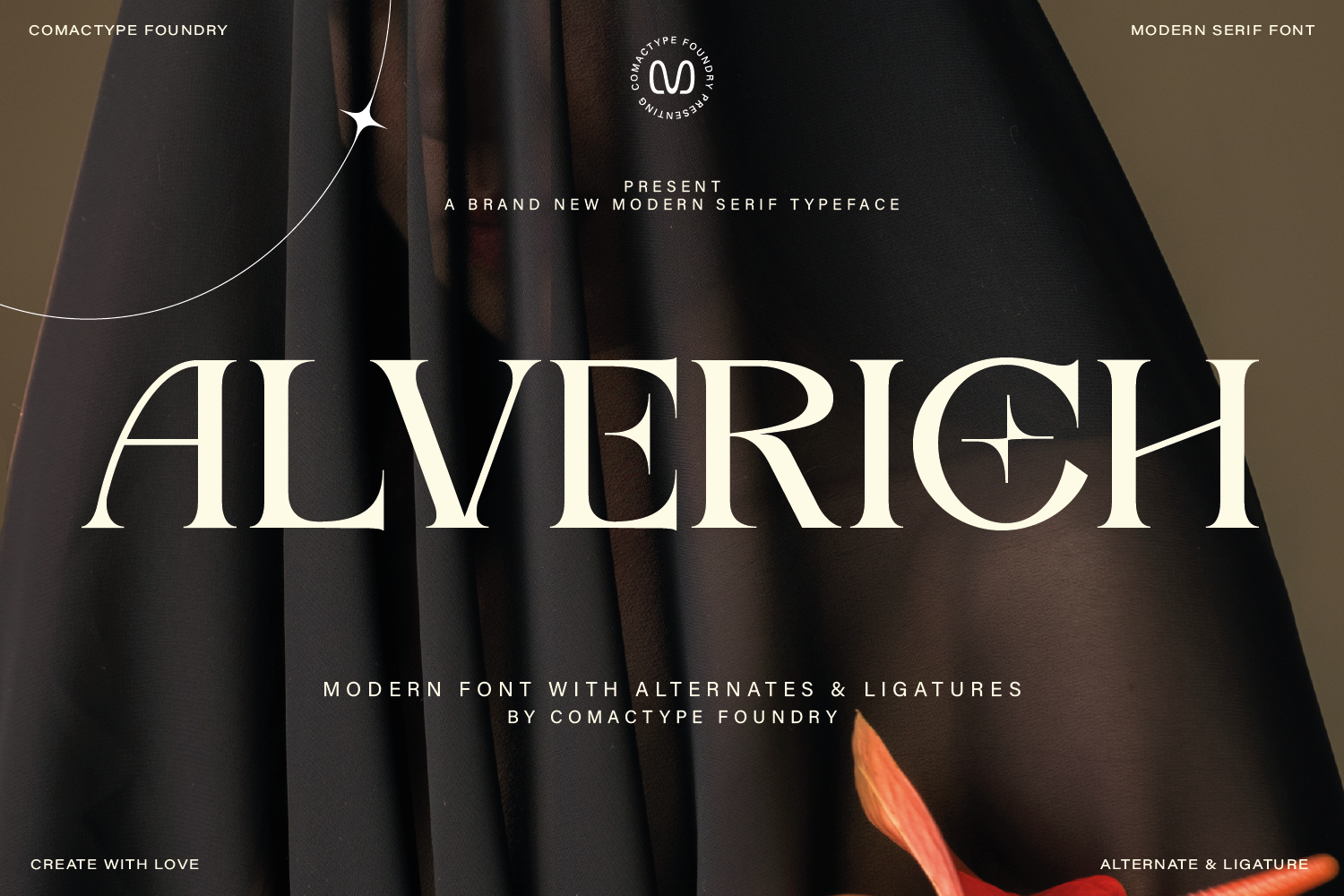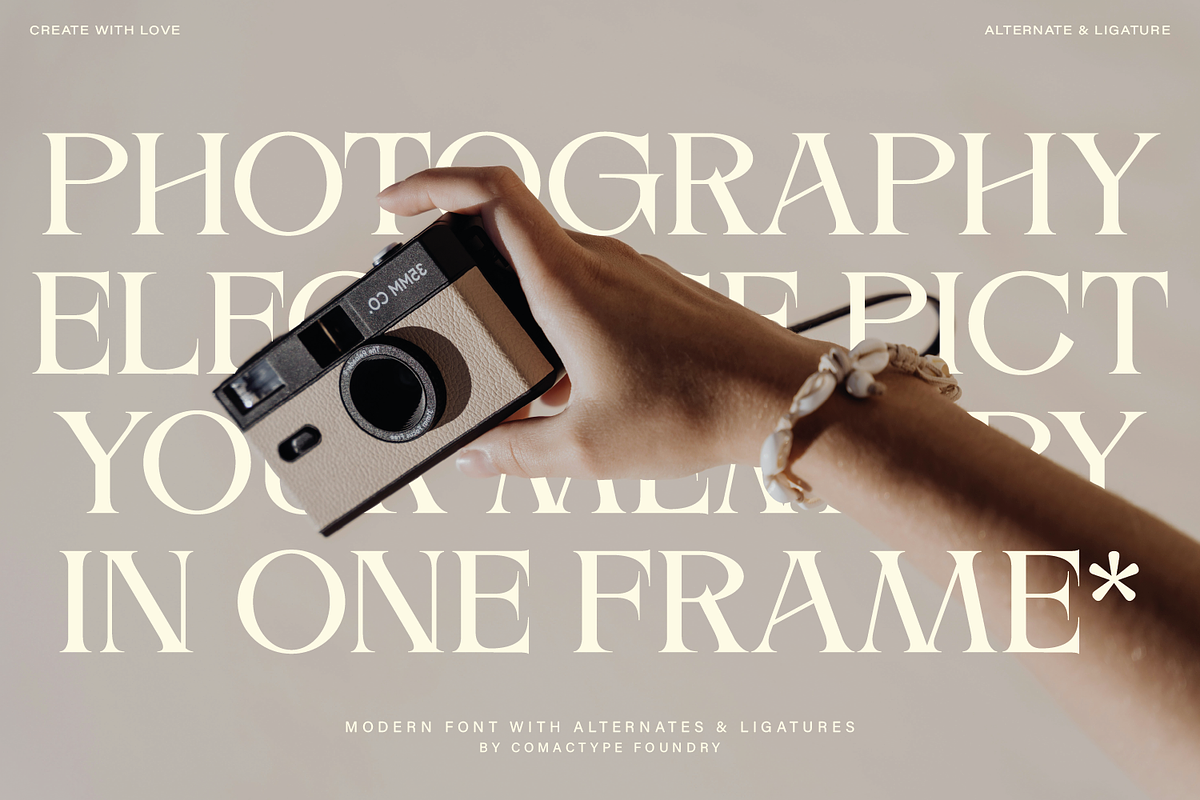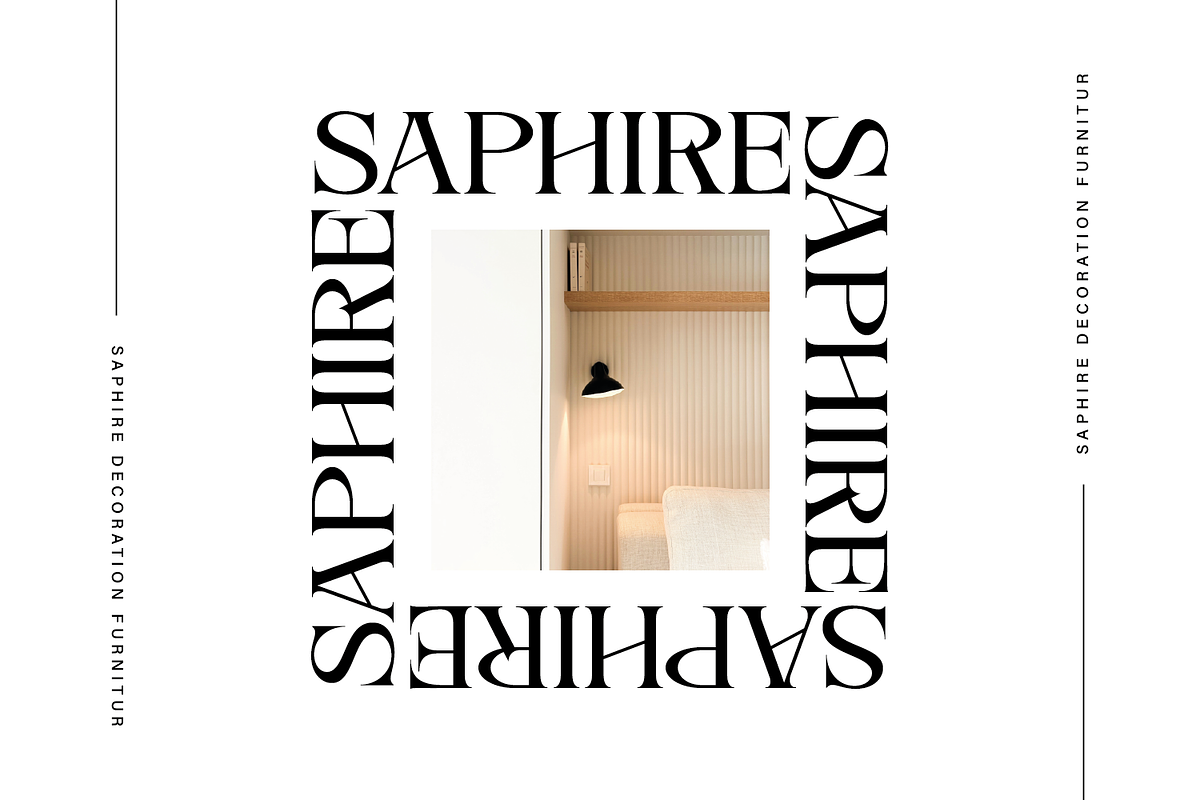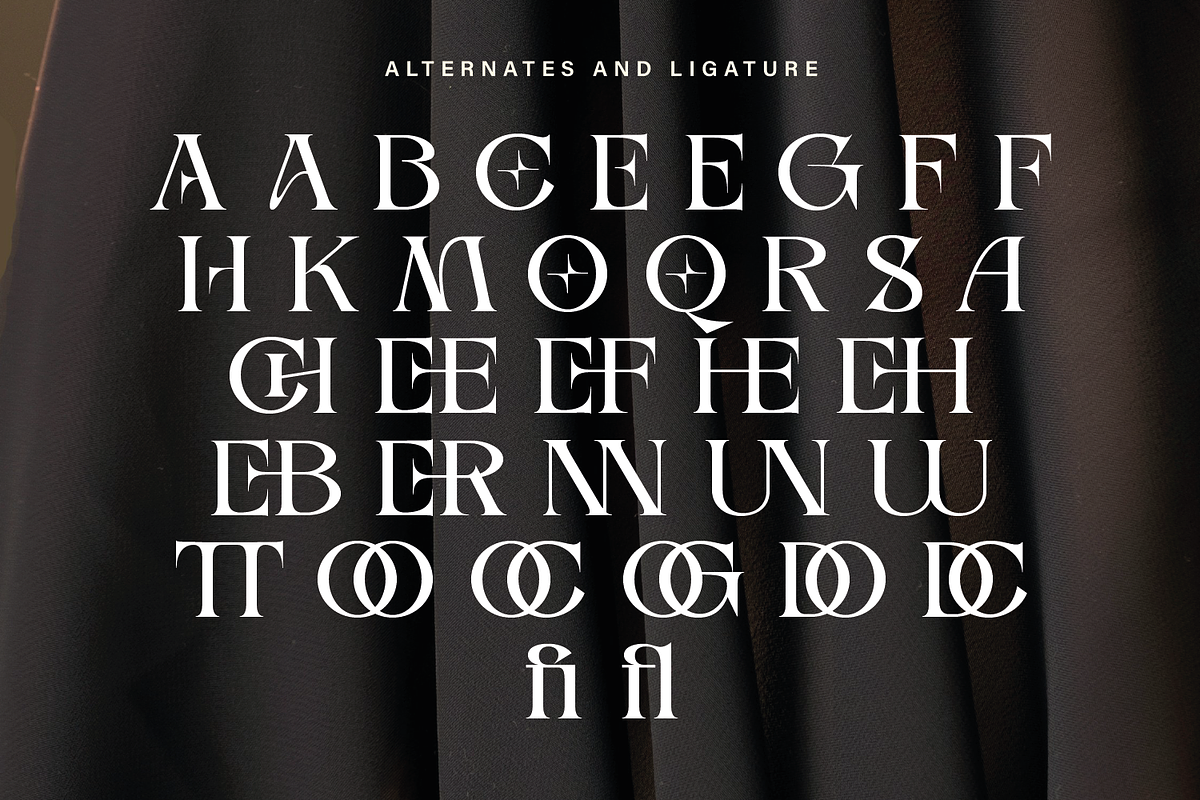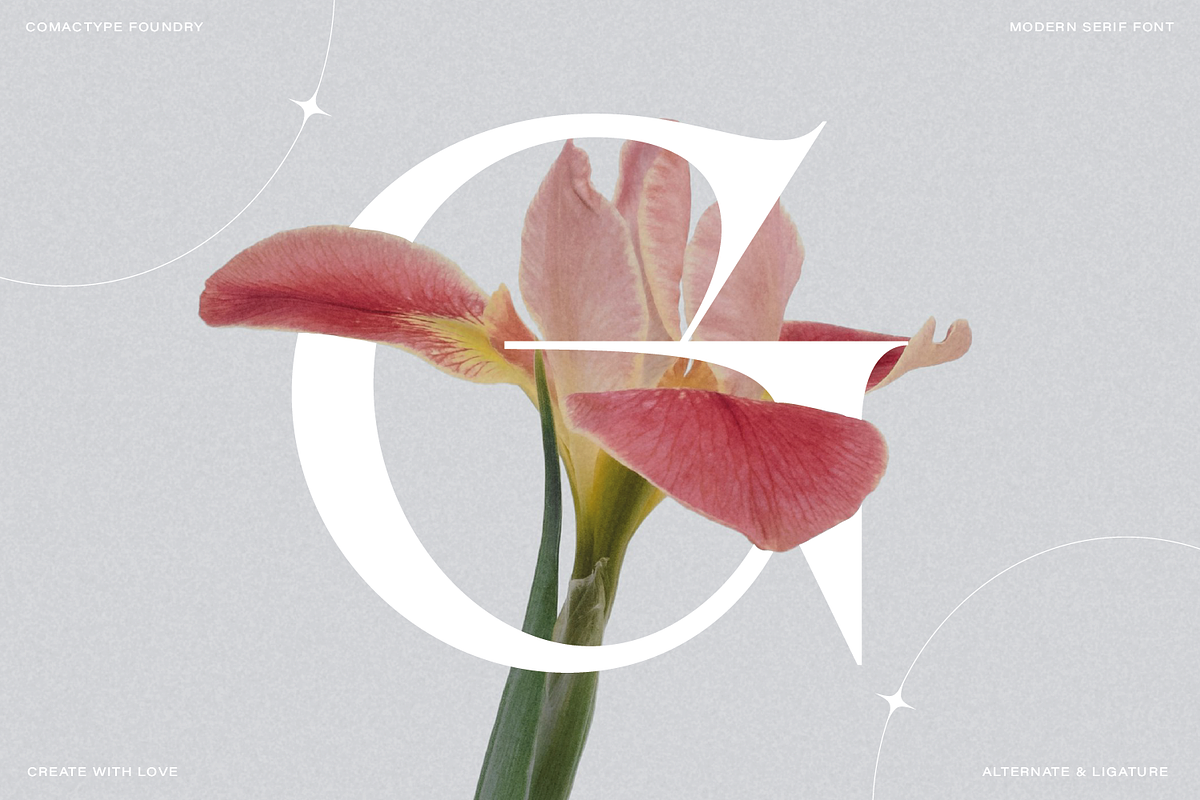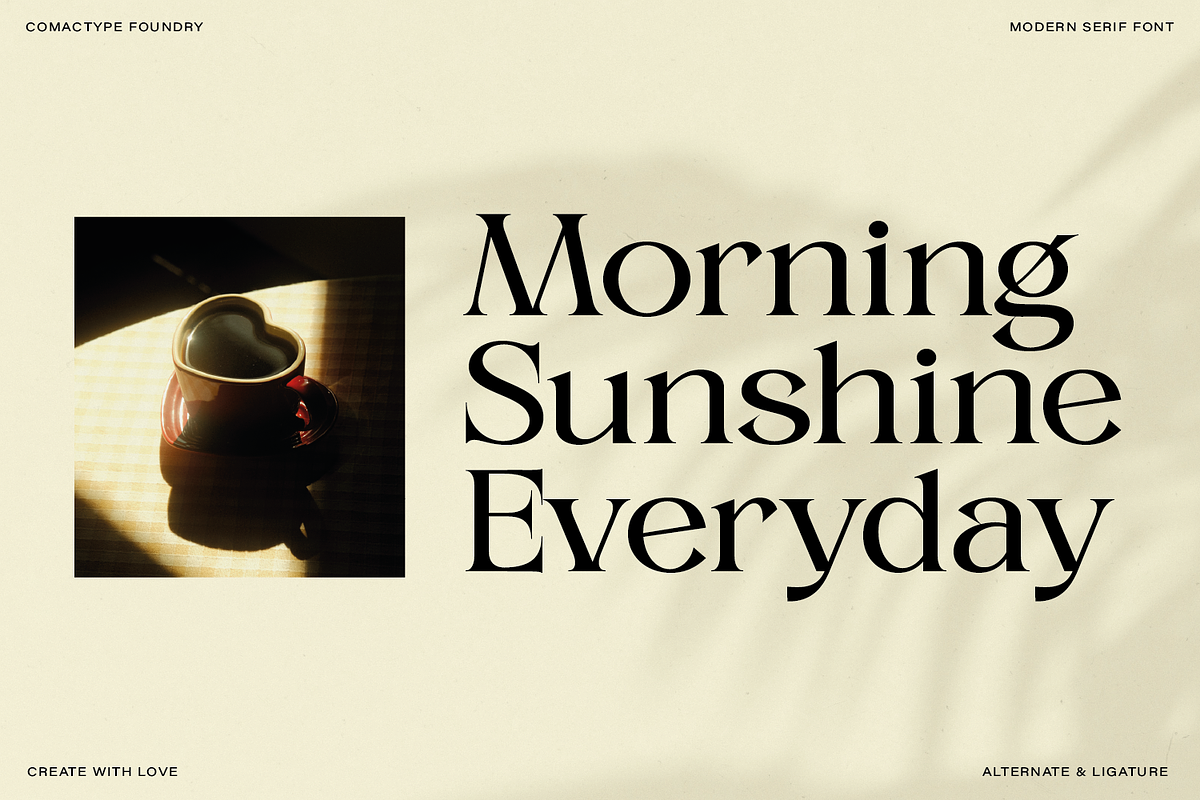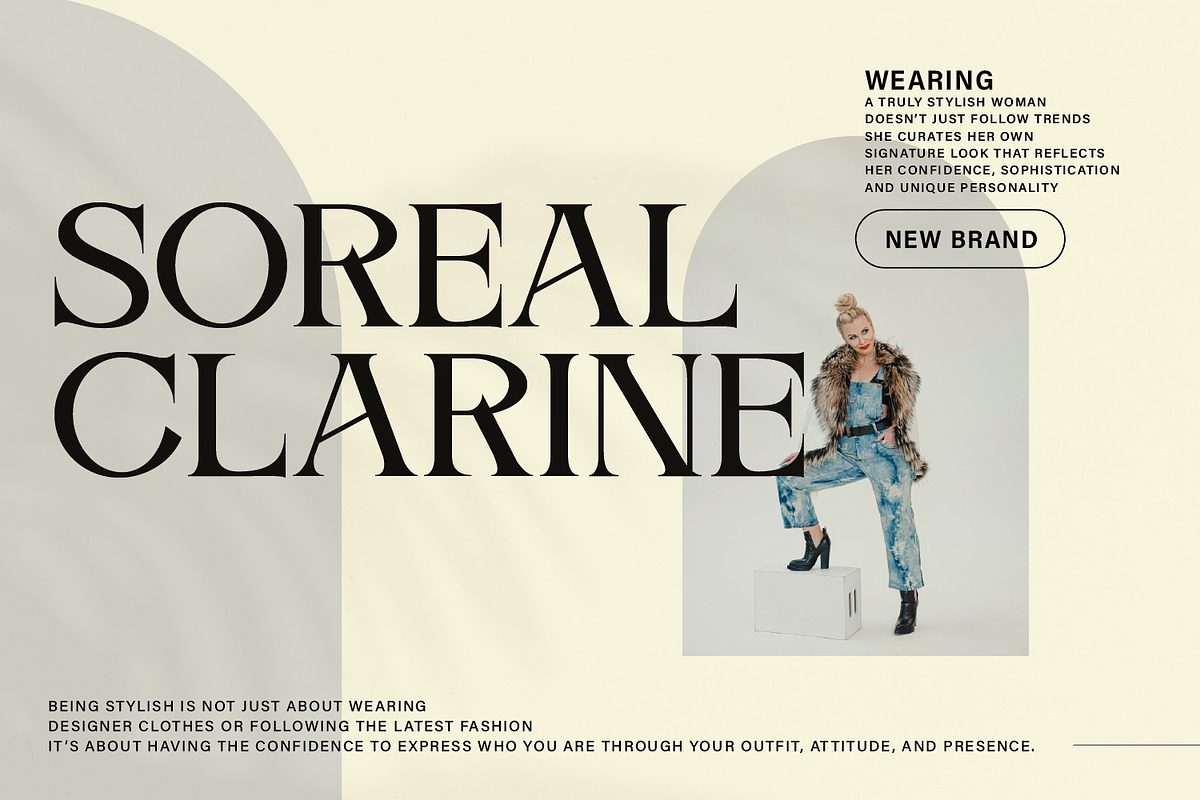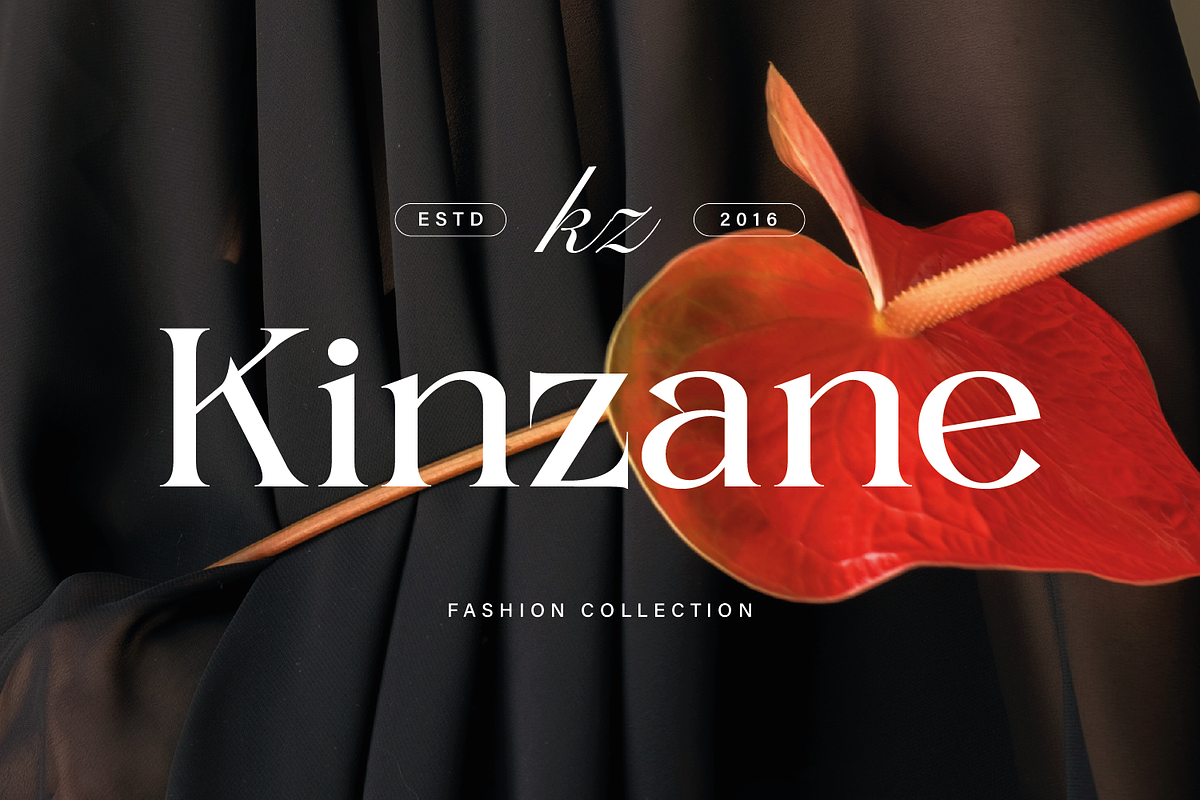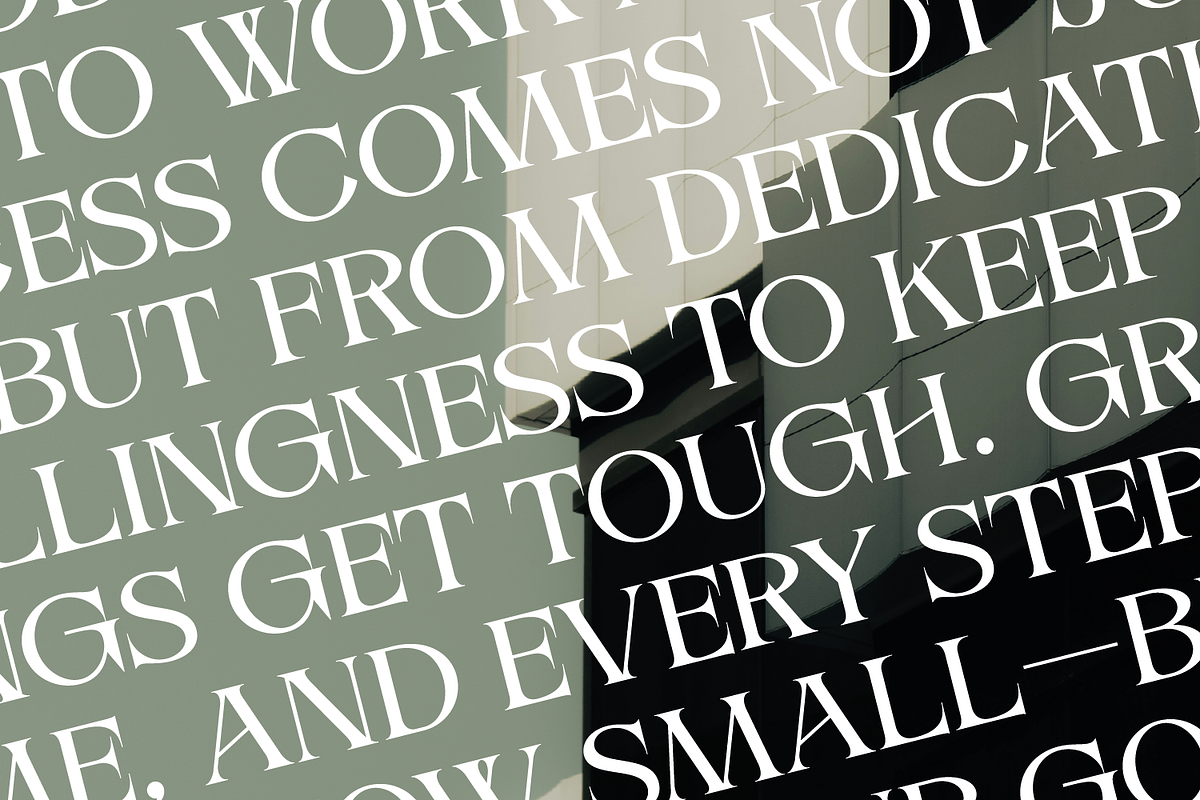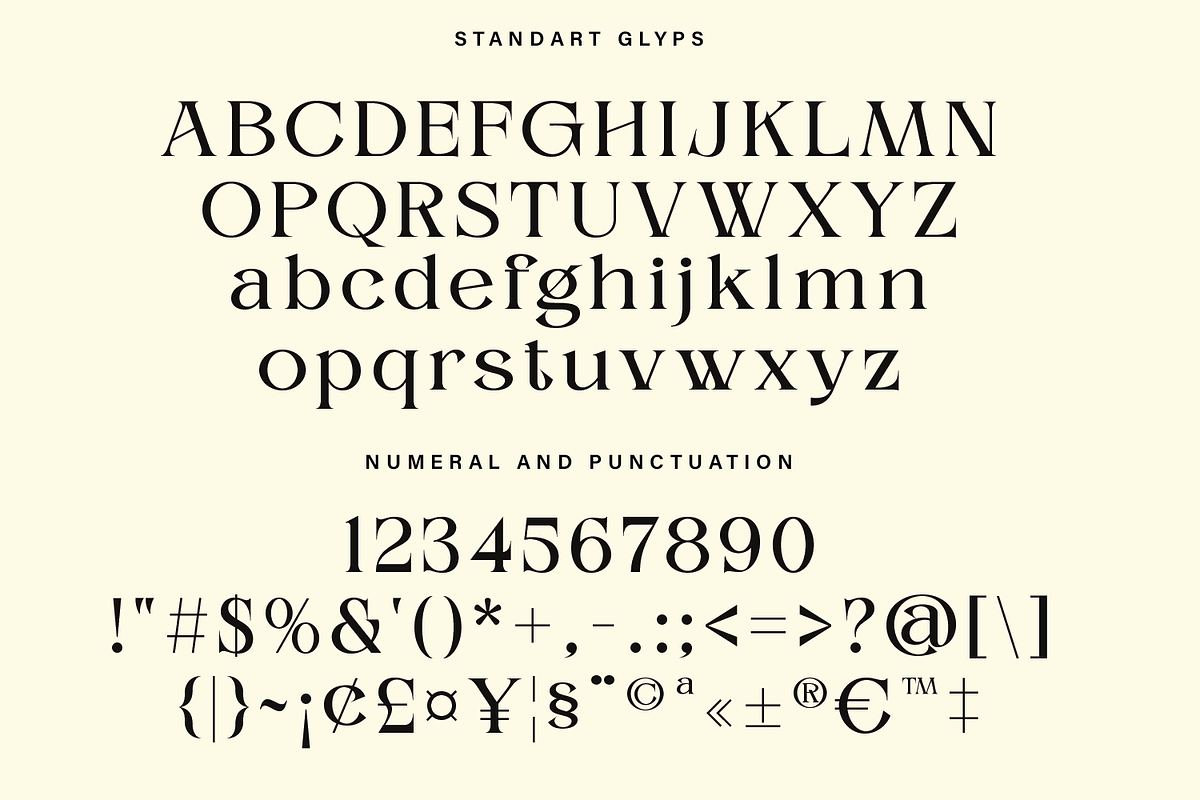
Alverich - Modern Serif Font
Alverich is a modern serif typeface designed by Comactype Foundry, offering a sophisticated and elegant aesthetic. It features sharp, well-defined serifs and a balanced contrast between thick and thin strokes, giving it a timeless yet contemporary appeal. The typeface includes a complete set of uppercase and lowercase letters, numerals, punctuation, and special characters, ensuring versatility for various design applications. One of Alverich's standout features is its selection of alternates and ligatures, which enhance its visual interest and provide designers with creative flexibility. The alternates introduce unique letterforms with stylish curves and decorative elements, making it ideal for branding, editorial design, invitations, and luxury-themed projects. The ligatures seamlessly blend characters to create smooth, refined typography, further enhancing the font’s sophisticated nature. With its combination of classic serif elegance and modern design details, Alverich is a perfect choice for those looking to add a touch of refinement and uniqueness to their typography projects.